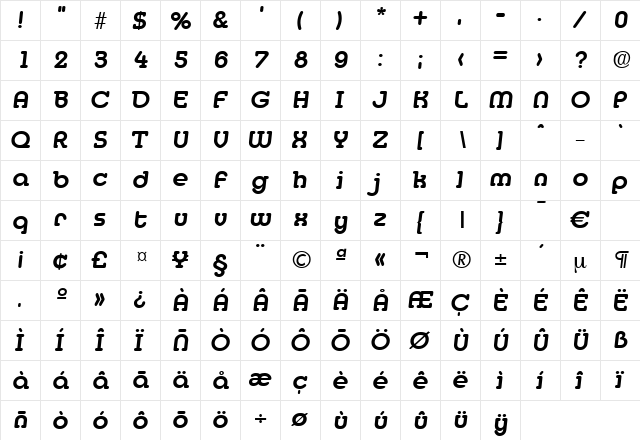
Media-DemiBoldIta Regular
Design Context for Media-DemiBoldIta Typeface
Media-DemiBoldIta offers clean, dependable letterforms without strong stylistic allegiance, making it a practical choice for designers who need flexibility. The heavy weight commands attention and anchors typographic hierarchies.
Pro Tip: Use Media-DemiBoldIta in both headline and body roles to test its range before committing to a single application.